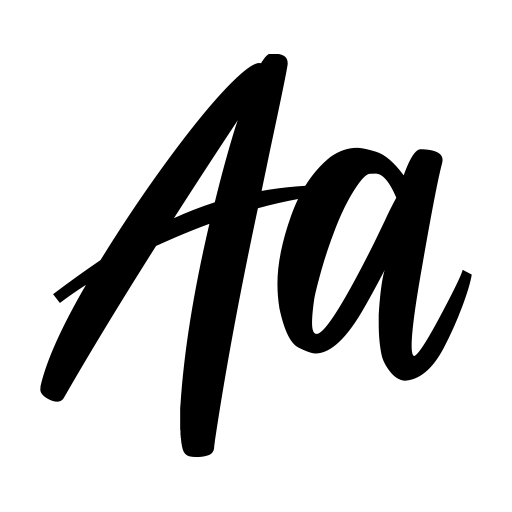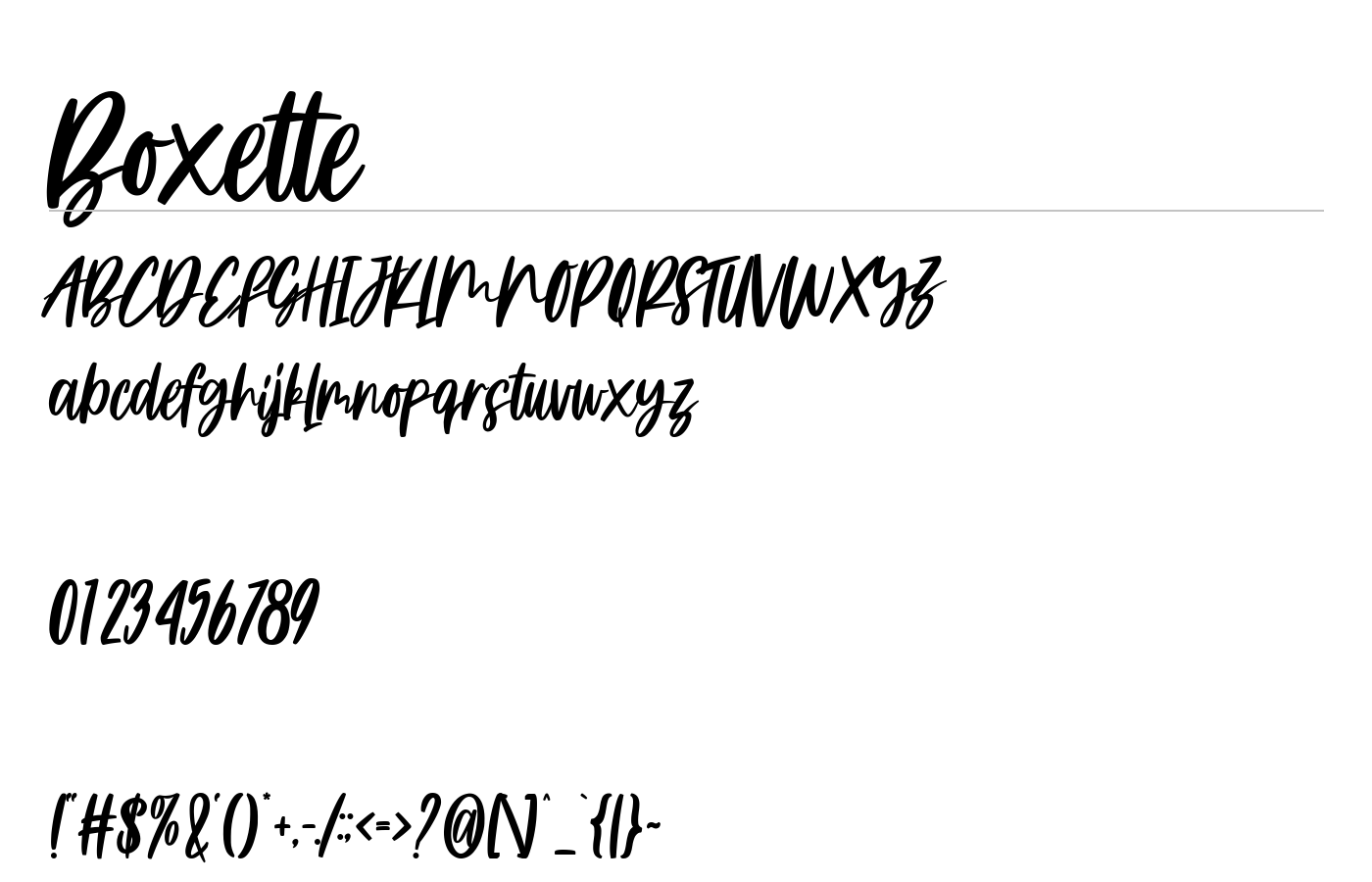
Boxette is a lively, handwritten script font with a bold, brush-like texture that brings a casual yet confident personality to any design. Its tall, slightly condensed letterforms and dynamic stroke flow make it perfect for playful headlines, branding, and creative projects aiming for a modern, approachable vibe. This font works especially well in informal or artistic contexts where warmth and individuality are key.
Boxette Font
About Boxette Font